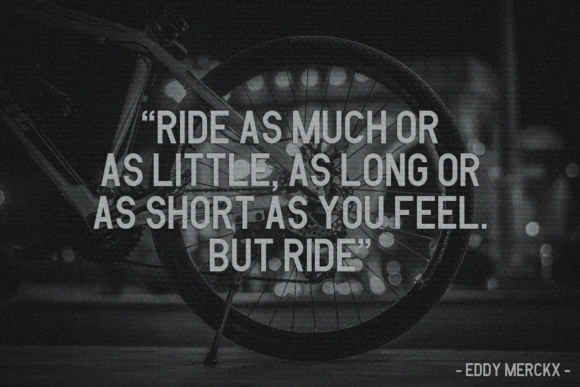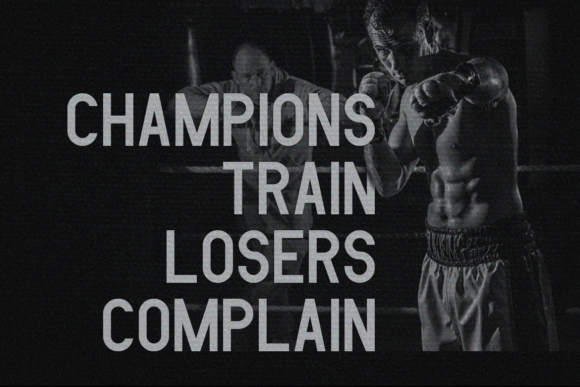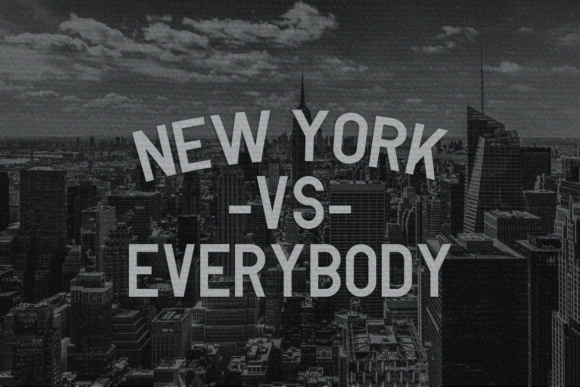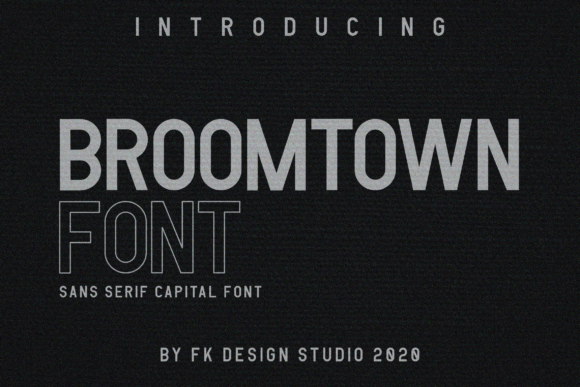
Broomtown Font: The Perfect Blend of Smooth and Sharp for Your Design Needs
In the world of typography, finding the right font can make all the difference in creating visually appealing designs. If you’re a designer or crafter looking for a friendly and casual sans serif font that exudes a clean feel, look no further than Broomtown Font. This versatile font is designed to complement any design need perfectly, thanks to its perfectly balanced mix of smooth and sharp elements.
What is Broomtown Font?
Broomtown Font is a sans serif font that boasts a unique blend of smooth and sharp lines, giving it a distinctive and modern look. Its clean feel makes it an excellent choice for a wide range of design projects, from digital media to print materials. Whether you’re working on a logo, brochure, website, or social media graphics, Broomtown Font is sure to elevate your design to the next level.
Key Features of Broomtown Font
• Clean and Modern Design: Broomtown Font features a sleek and contemporary design that will give your projects a fresh and modern look.
• Perfectly Balanced Mix of Smooth and Sharp: The font’s unique blend of smooth and sharp elements creates a visually appealing contrast that adds depth and interest to your designs.
• Highly Versatile: Broomtown Font is suitable for a wide range of design projects, including logos, brochures, websites, social media graphics, and more.
• Easy to Read: The font’s clear and legible design ensures that your message is communicated effectively, making it perfect for body text and headings.
Benefits of Using Broomtown Font
So, why choose Broomtown Font for your design projects? Here are just a few benefits of using this fantastic font:
• Enhance Your Brand’s Visual Identity: Broomtown Font can help you create a consistent visual brand identity that reflects your company’s values and personality.
• Stand Out from the Crowd: With its unique blend of smooth and sharp elements, Broomtown Font is sure to make your designs stand out from the competition.
• Save Time and Effort: The font’s versatility and ease of use mean you can create professional-looking designs quickly and efficiently.
How to Use Broomtown Font in Your Designs
Using Broomtown Font in your designs is easy. Here are a few tips to get you started:
• Pair it with Other Fonts: Broomtown Font pairs well with a range of other fonts, so feel free to experiment with different combinations to find the perfect look for your project.
• Experiment with Different Sizes and Colors: The font’s clean design means it looks great in a range of sizes and colors, so don’t be afraid to try out different options.
• Use it for Body Text and Headings: Broomtown Font is perfect for both body text and headings, making it a great choice for a wide range of design projects.
In conclusion, Broomtown Font is a fantastic choice for designers and crafters looking for a friendly and casual sans serif font with a clean feel. Its perfectly balanced mix of smooth and sharp elements makes it a versatile and visually appealing choice for a wide range of design projects. Whether you’re working on a logo, brochure, website, or social media graphics, Broomtown Font is sure to elevate your design to the next level.
Get Ready to Elevate Your Designs with Broomtown Font